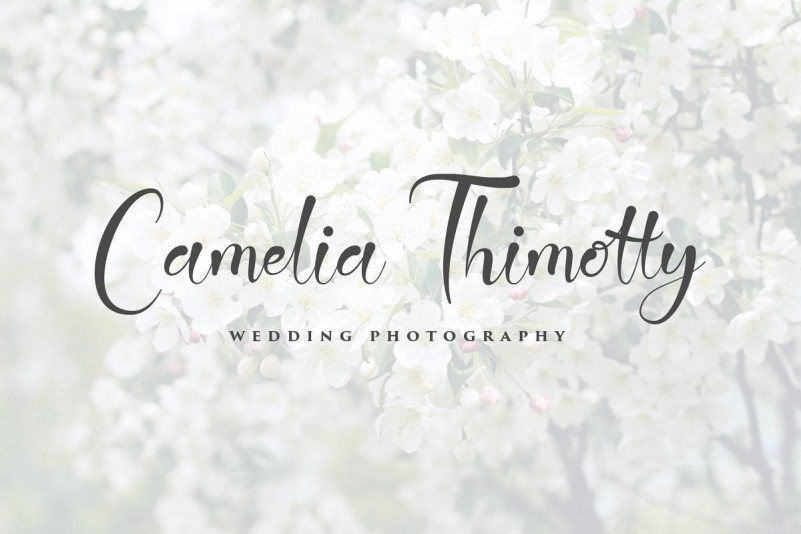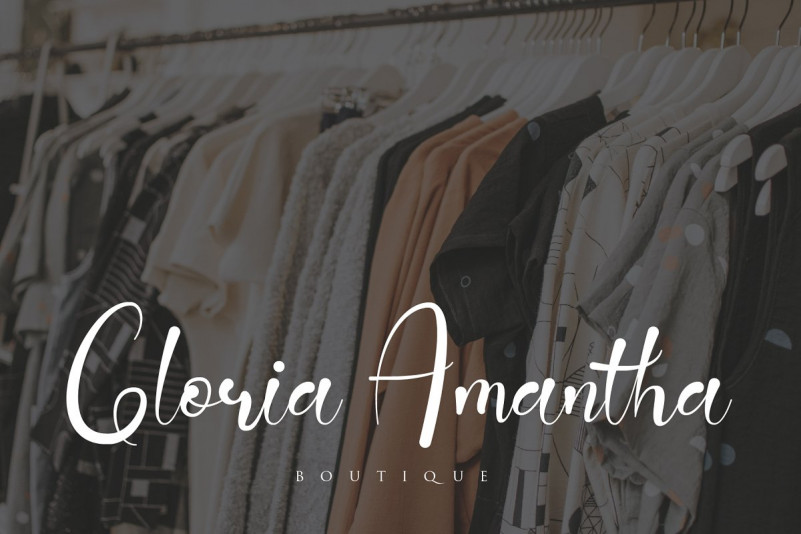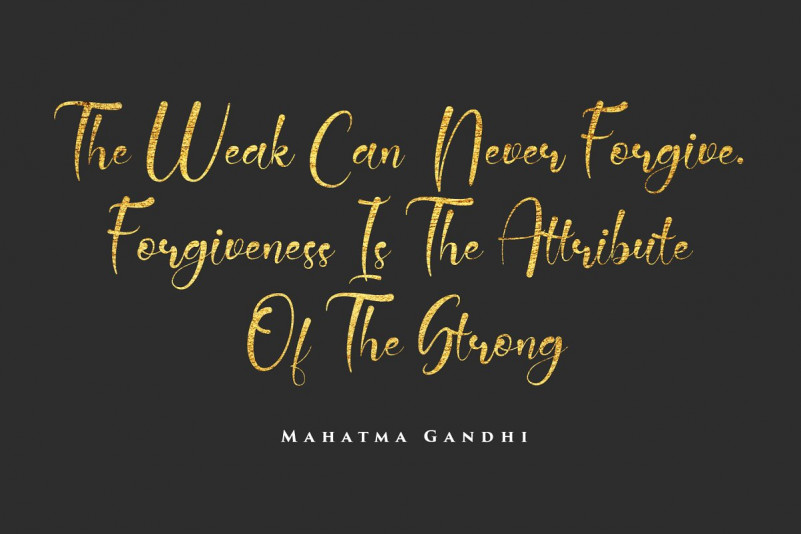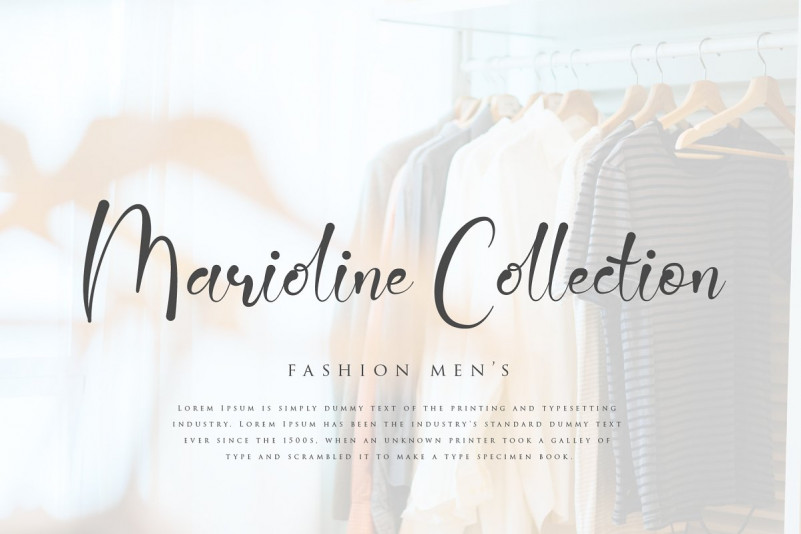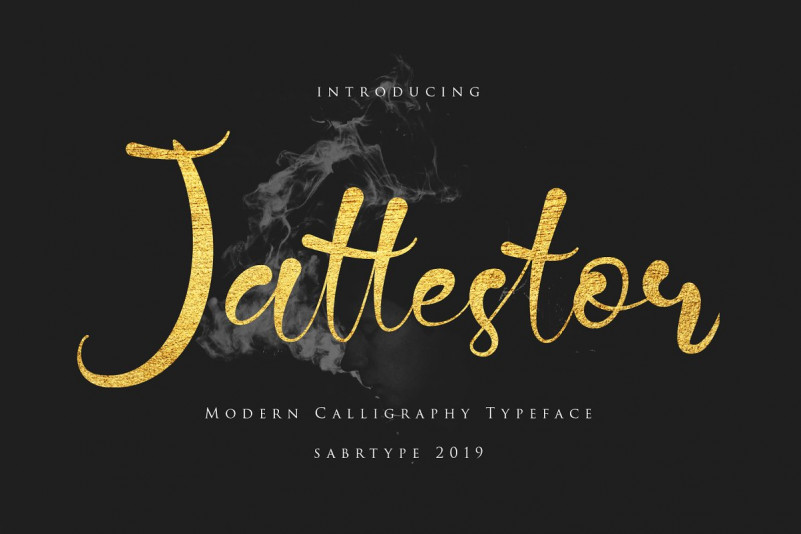
Jattestor Script Font
Jattestor Script Font – Free Demo
This is modern calligraphy typeface by sabrcreative. This is a very versatile font family. It can be used in vintage or contemporary designs. Introducing Jattestor Font. Jattestor Modern Calligraphy Typeface, a new script font from Sabrtype studio in a modern, simple and elegant style. Jattestor Modern Calligraphy Typeface font is perfect for many different project such as logos & branding, invitation, stationery, wedding designs, social media posts, advertisements, product packaging, product designs, label, photography, watermark, special events or anything, quotes, fashion, etc…